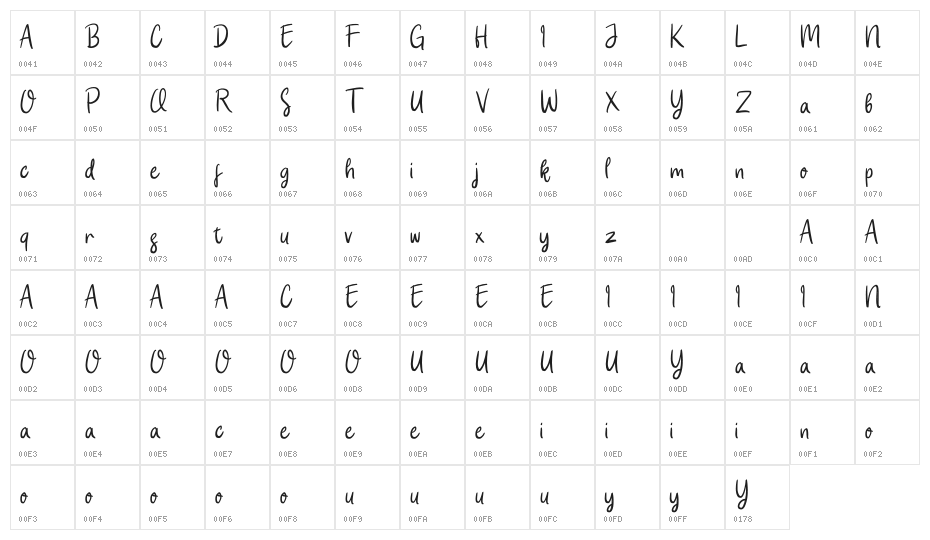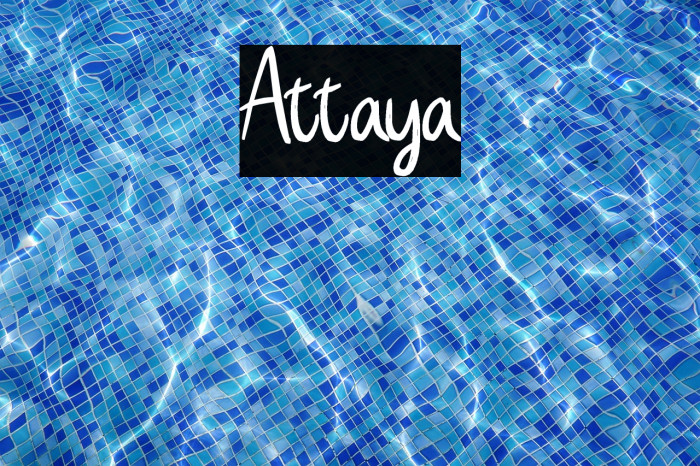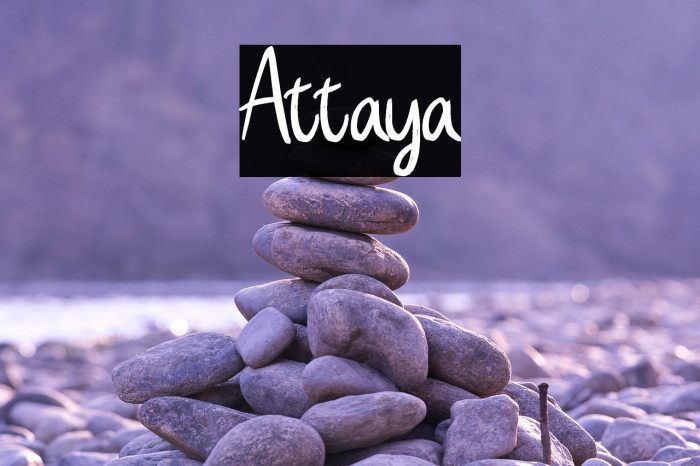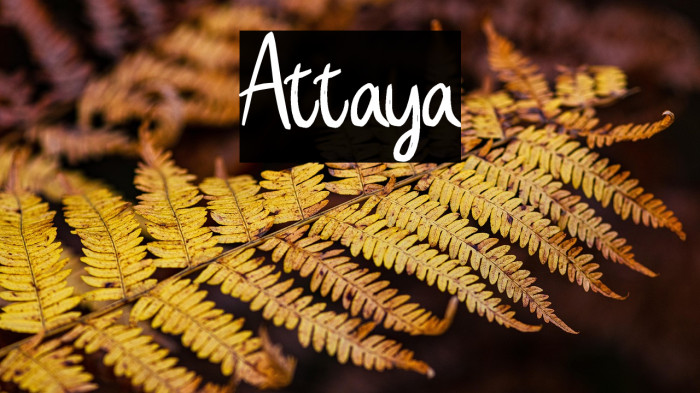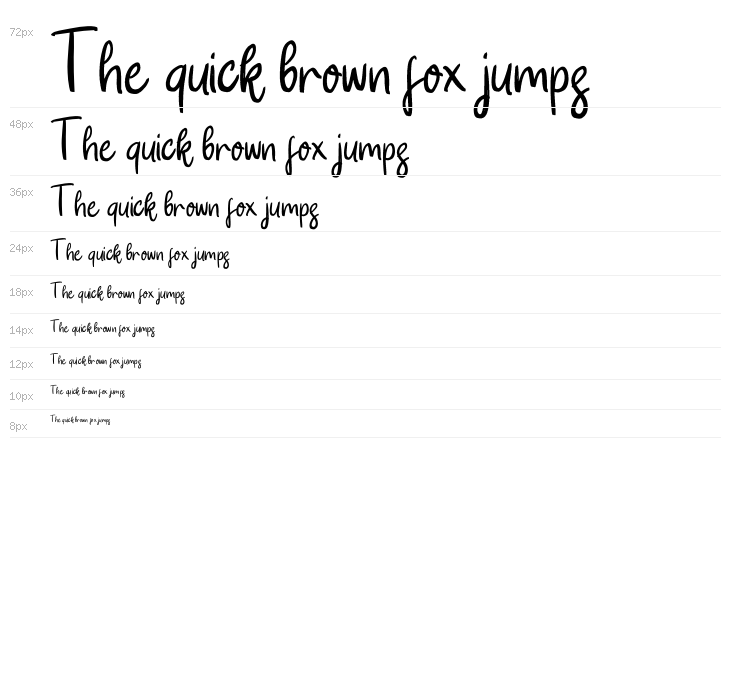
Attaya Font
Attaya Description
This font features a playful and casual handwritten style, characterized by its smooth, flowing lines and slightly irregular shapes. The letters have a natural, organic feel, with varying stroke widths that add a sense of movement and personality. The uppercase letters are tall and slightly narrow, while the lowercase letters maintain a consistent height, creating a harmonious balance. The numerals are clear and easy to read, complementing the overall style. Special characters are included, maintaining the same playful aesthetic. This font exudes a friendly and approachable vibe, making it suitable for a variety of creative projects.
| Proposed Projects | Ideal for greeting cards, invitations, personal branding, and creative social media graphics. |